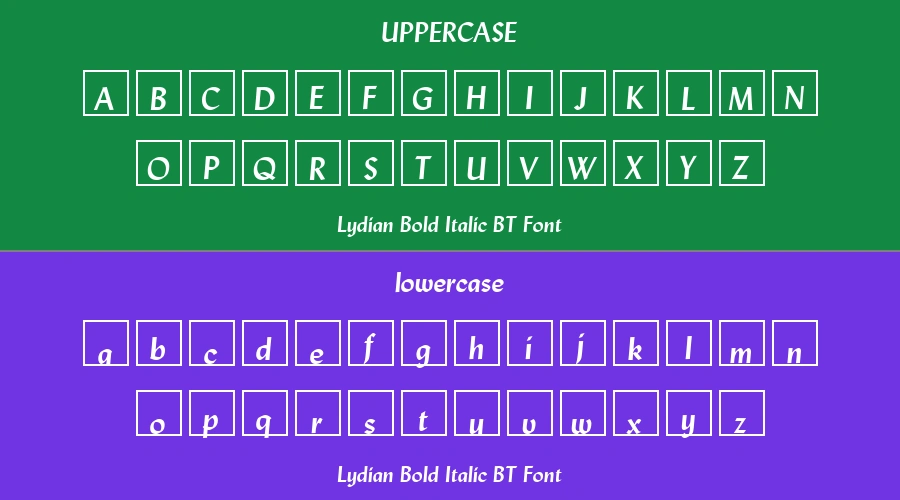
About Lydian Bold Italic BT Font
Lydian Bold Italic BT Font stands out for its distinctive combination of open counters and signature style. Ideal for event branding, it provides the durability and market relevance that professional projects demand. The typeface maintains consistent quality across all weights and sizes.
Key features include refined balanced weights and practical brand signatures, enhancing typographic expression. In running text applications, Lydian Bold Italic BT Font demonstrates exceptional readability. The x-height and historical references contribute to its distinctive character and professional appeal.